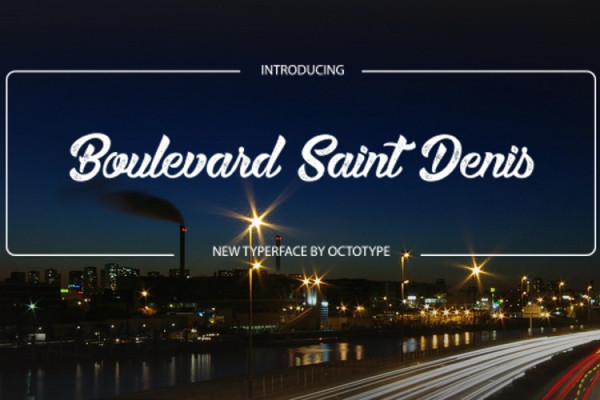
Boulevard Saint Denis Font
Boulevard Saint Denis Font is a script font designed by Octotype. The font is inspired by the French boulevards, and it features a flowing, elegant design. It is perfect for headlines, titles, and logos.
Boulevard Saint Denis is a versatile font that can be used for a variety of projects. It is perfect for creating eye-catching headlines, titles, and logos. It can also be used for body text, but it is best used sparingly, as it can be difficult to read at smaller sizes.